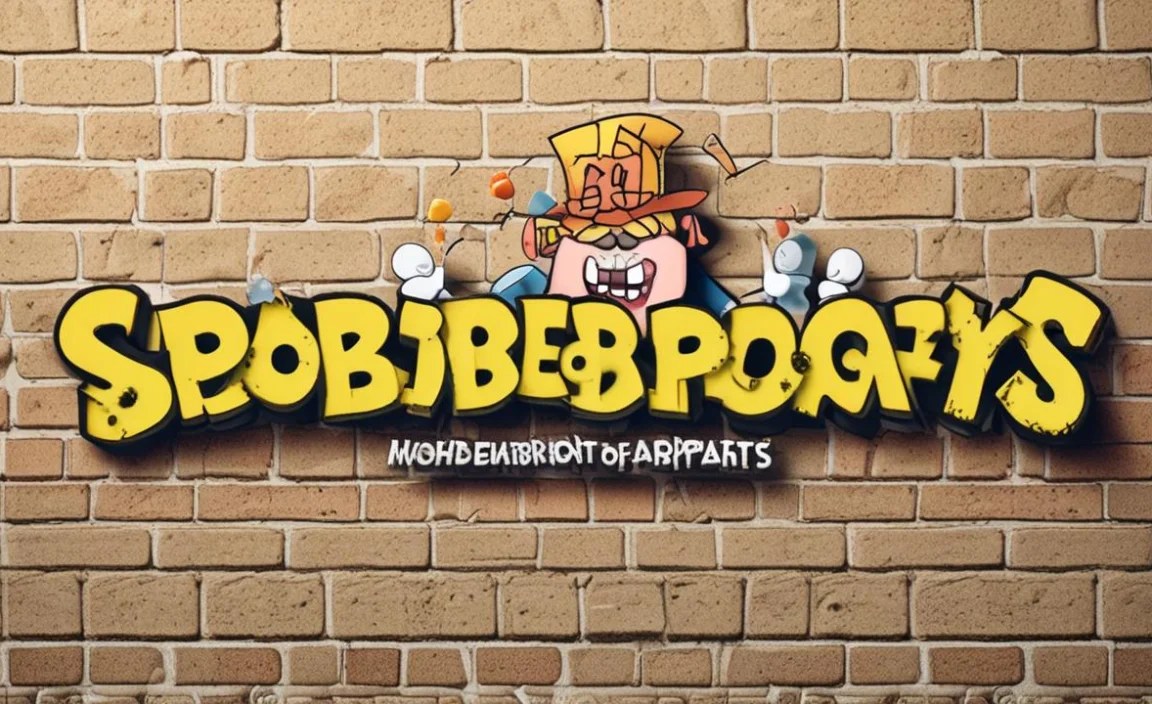
The SpongeBob SquarePants Font is a playful, quirky typeface inspired by the famous animated series SpongeBob SquarePants, created by animator Stephen Hillenburg.
This font captures the essence of the show’s fun, underwater world of Bikini Bottom, and is perfect for design projects, memes, and anything with a lighthearted, cartoonish flair. The font is available in different styles, making it ideal for everything from logos to speech bubbles in SpongeBob SquarePants movie posters.
SpongeBob SquarePants Font Information
| Name | SpongeBob Font |
| Style | Fancy, Cartoon, Bold |
| Designer | FG Studios |
| Type | Display |
SpongeBob SquarePants Font Family Includes
- SpongeBob Regular
Where SpongeBob SquarePants Font Is In Use
- Spongebob Squarepants Logo – Used in the logo for the animated series.
- Spongebob Squarepants Movie – Featured in promotional material and movie titles.
- Krabby Patty Banners – Ideal for cartoon-themed events or banners.
- Memes and Social Media Graphics – A favorite in meme culture, often used for humorous content.
- Stickers & Speech Bubbles – Used to create fun stickers and comic-style speech bubbles.
- Design Projects – Perfect for any design project needing a playful, cartoon-like font.
- Posters – Great for creating movie posters or event flyers with a whimsical touch.
- SpongeBob Font & Krabby Patty Font – These two playful fonts work wonderfully together in designs that need a combination of boldness and whimsy.
- SpongeBob Font & Time Later Font – The quirky feel of the SpongeBob font pairs well with the more dynamic, fun style of Time Later for a balanced design.
- SpongeBob Font & Bluey Font – Another playful font combination that maintains a fun, friendly vibe.
- SpongeBob Font & Death Note Font – Combining the cartoonish SpongeBob Font with the slightly more serious, stylized Death Note Font can create unique contrasts for specific designs.
Yes, the font works great for creating fun and eye-catching posts on social media, especially memes or cartoons.
3.Is The Font Available In Multiple Styles?
Yes, it comes in two styles: SpongeBob Regular and SpongeBob 3D.
4.What Is The Best Use For The Spongebob Font?
It is ideal for design projects, such as banners, posters, logos, meme creation, and social media graphics that require a fun, quirky, or cartoonish style.